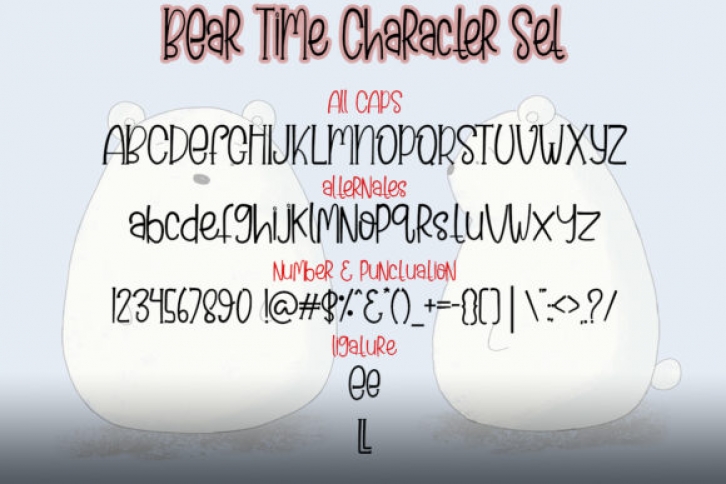
Bear Time is a sweet and friendly handwritten font. This font is all Caps With Alternates. Its natural and unique style makes it incredibly fitting to a large pool of designs. The only limit is your imagination!